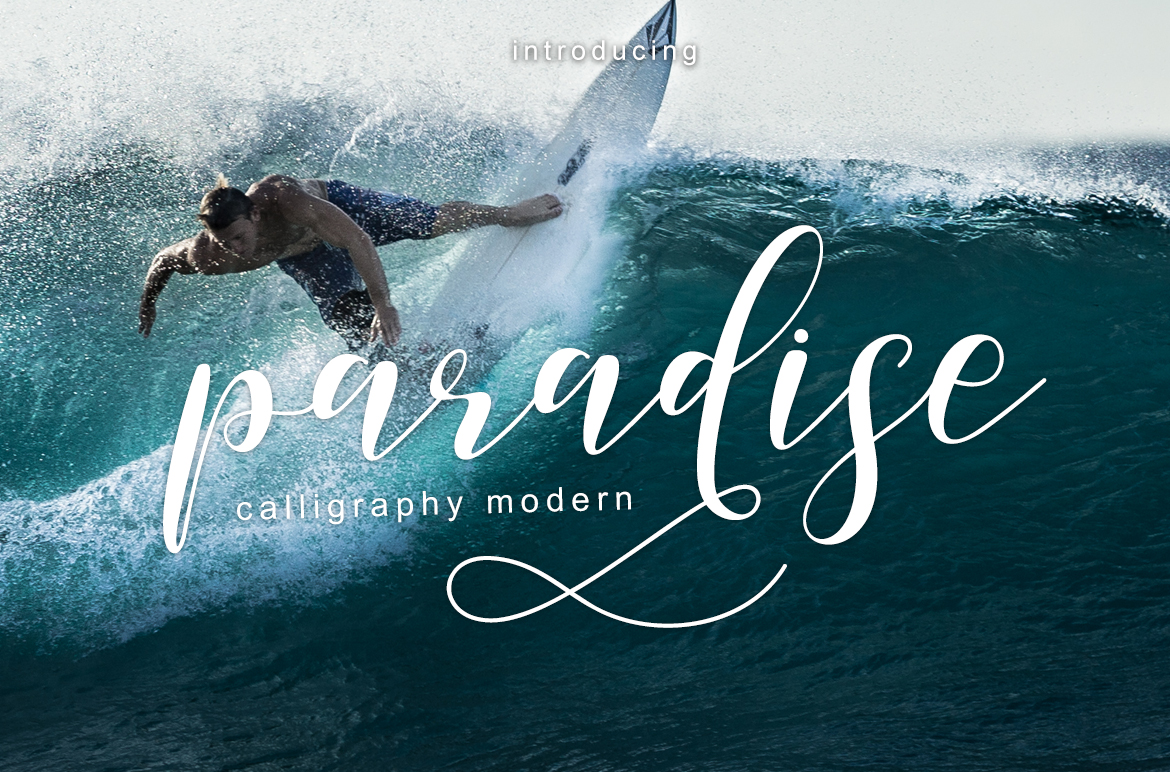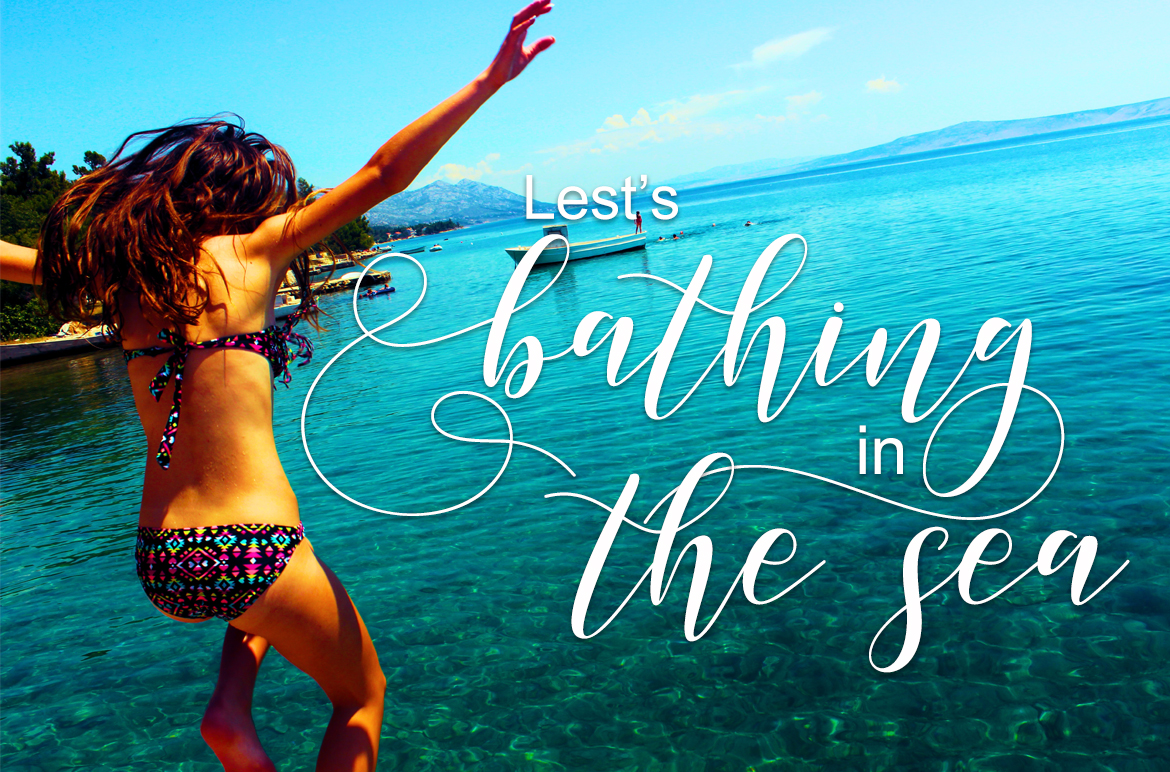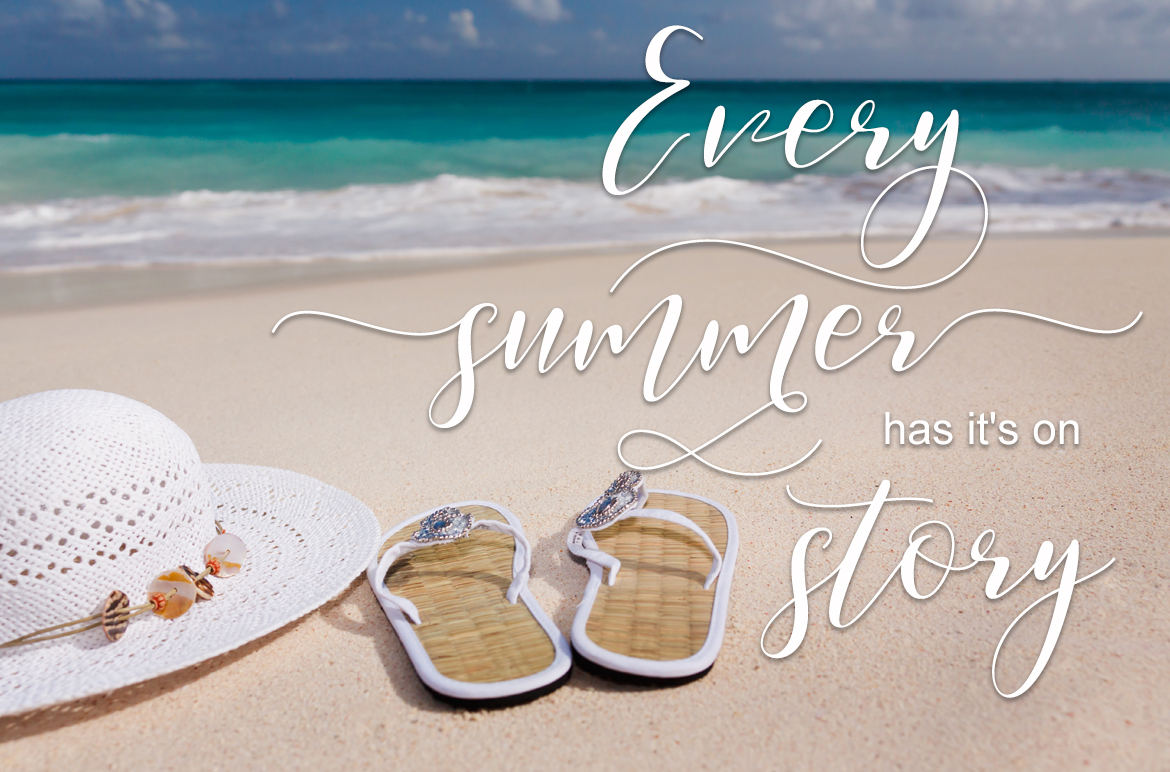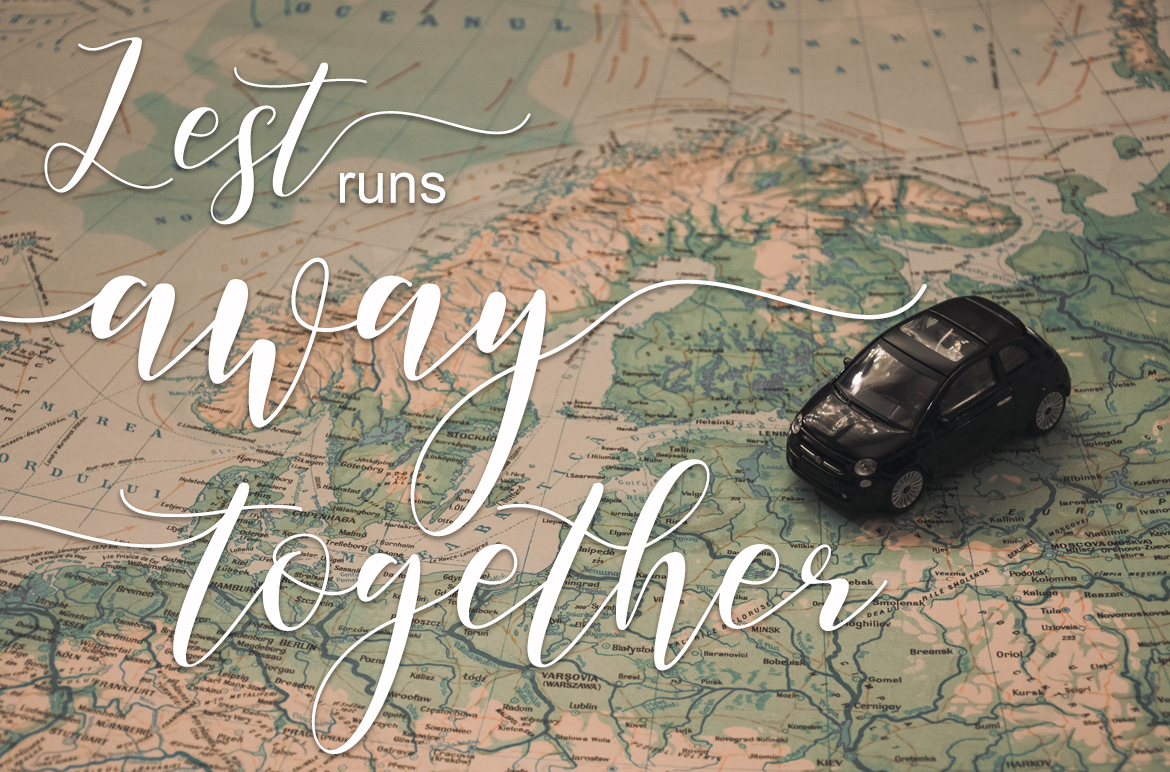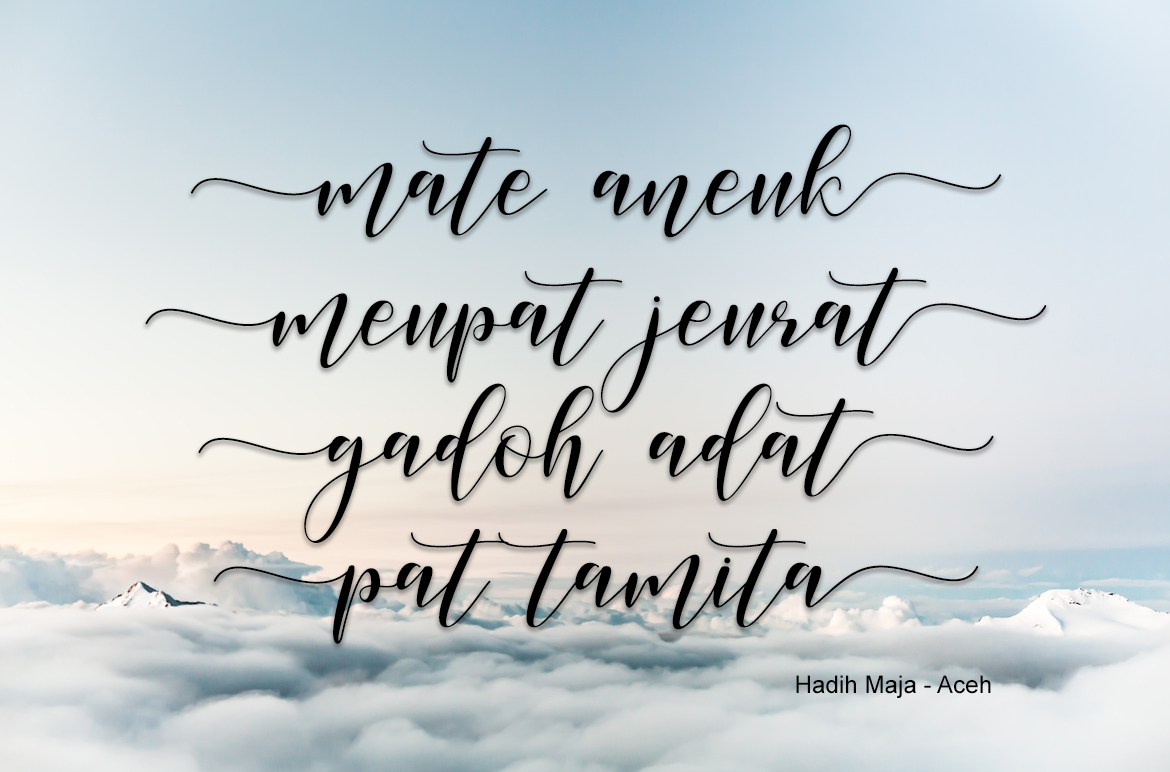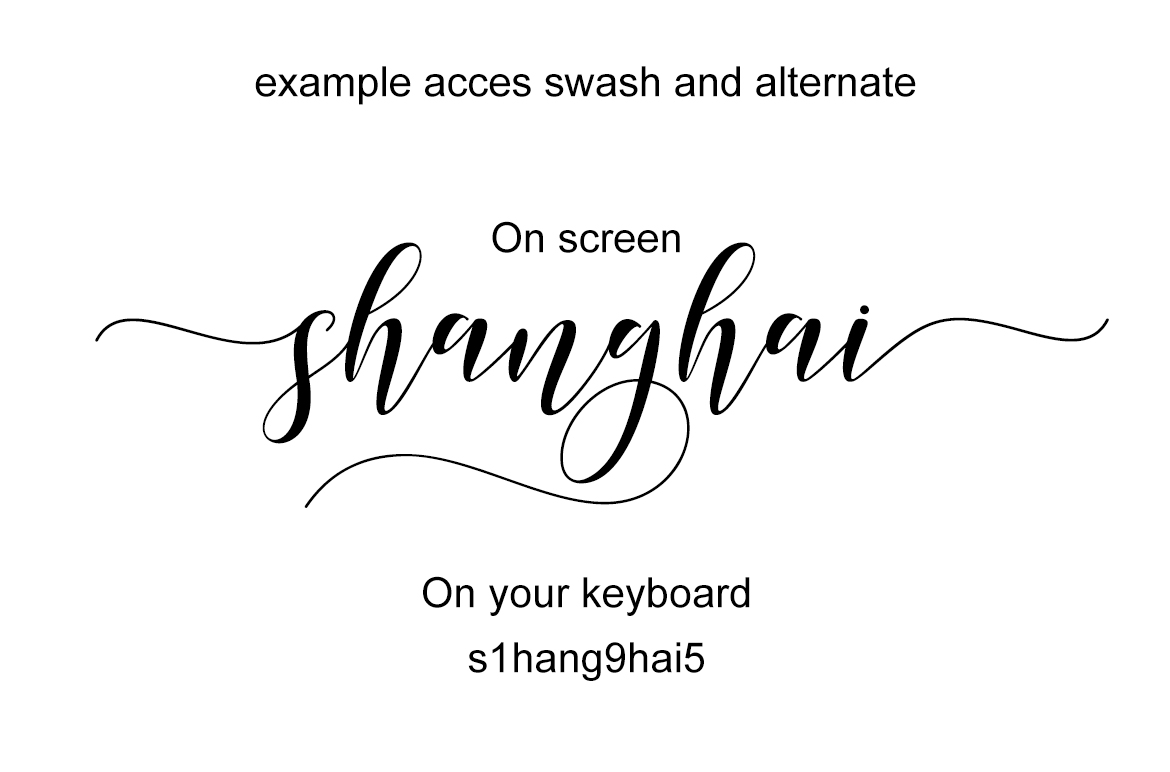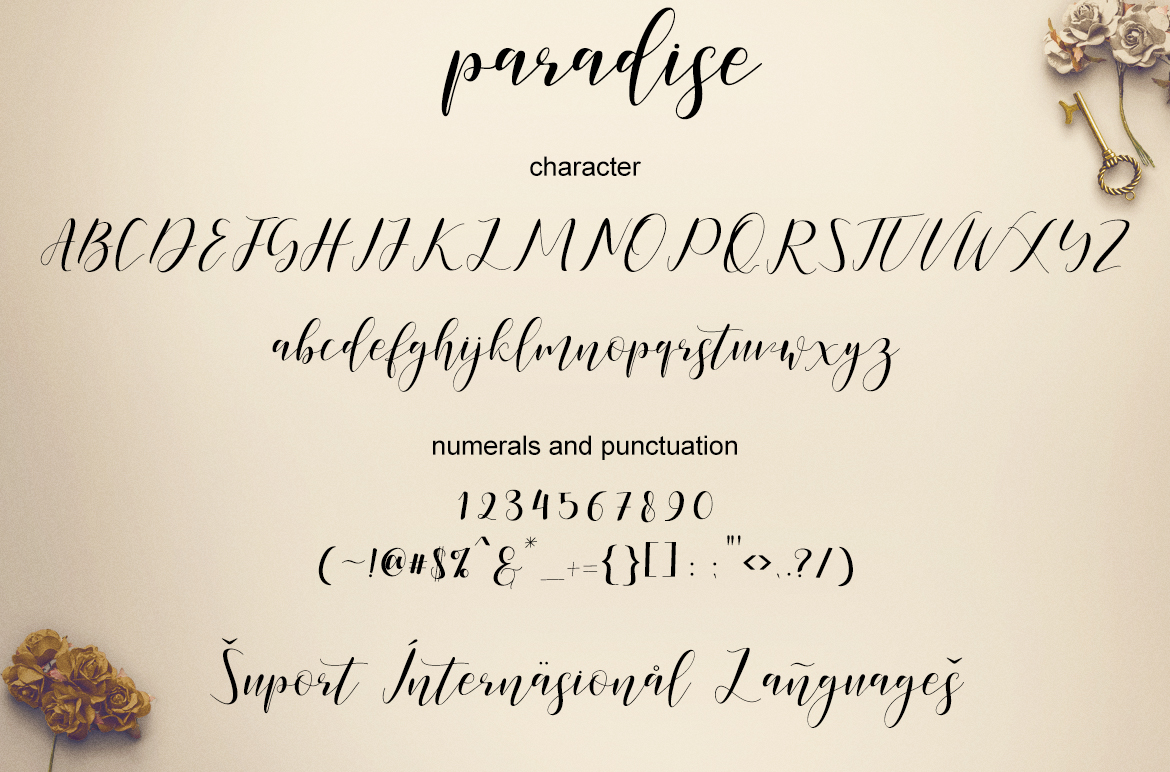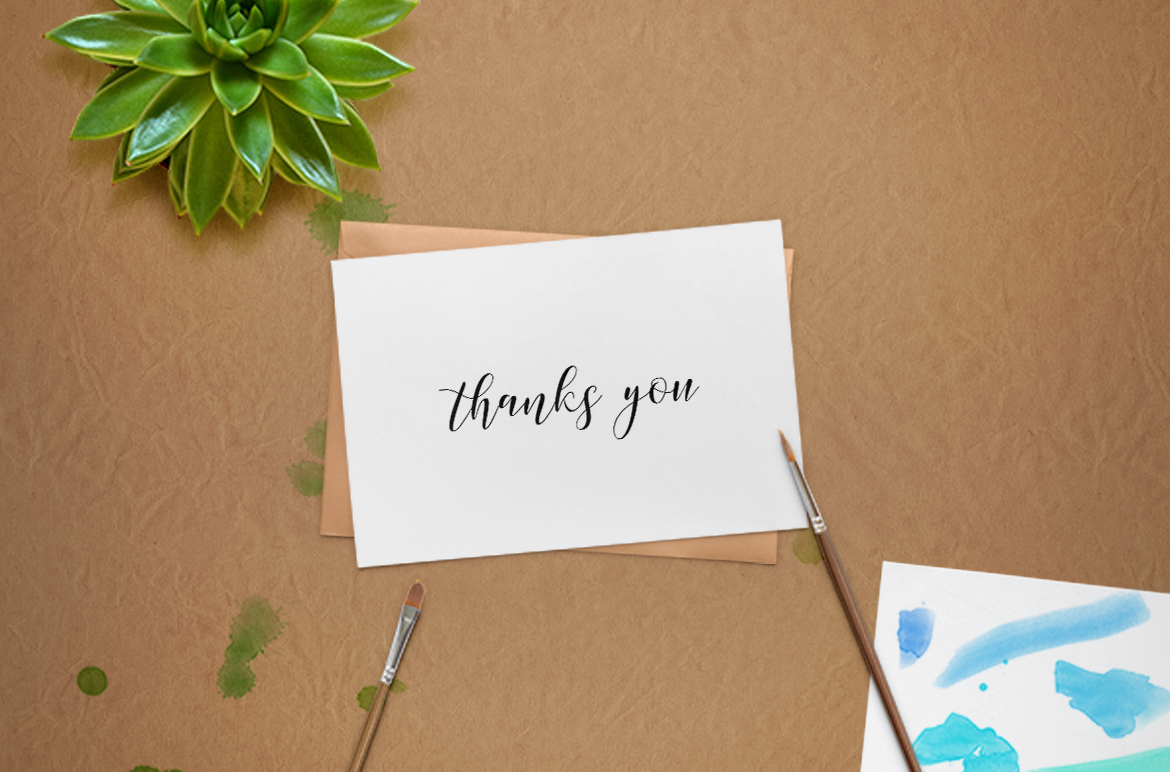
Paradise Font
About Paradise Font
Paradise is a modern script font with decorative characters. It comes with more than 390 unique glyphs and uses many OpenType features, making it a versatile font for many types of projects.